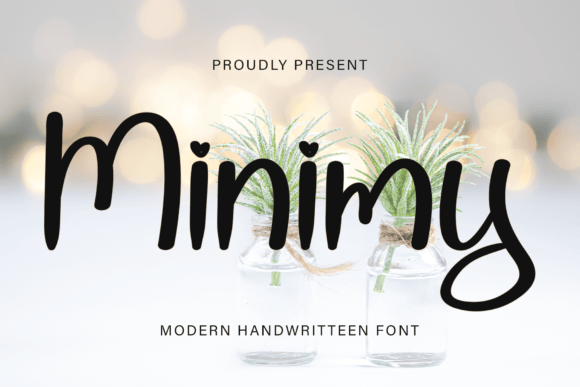
Welcome to the world of Minimy Font, a captivating script font family that exudes casual elegance and heartfelt charm. Created by the talented artisans at pinkmeca, Minimy is a font that speaks to the heart with its friendly and approachable nature. Whether you're a seasoned designer or just starting your creative journey, Minimy is the perfect font to add a touch of warmth and personality to your projects.
Step into a world where creativity knows no bounds with Minimy, the enchanting script font that transforms your ideas into visual masterpieces. With its playful and inviting style, Minimy is the ideal choice for those seeking a font that radiates warmth and authenticity. Dive into a universe of endless possibilities, where your imagination takes center stage.
Craft captivating Instagram posts that resonate with your audience, using Minimy's enchanting curves and expressive strokes to convey your message with a touch of heartfelt charm. Create beautiful calligraphy scripts for your DIY projects, adding a personal touch that makes your creations truly one-of-a-kind. Let Minimy be your creative companion, guiding you through a journey of self-expression and artistic fulfillment.
More than just a font, Minimy is an experience that ignites your imagination and allows your creativity to flourish. Its friendly demeanor and playful nature make it the perfect choice for business forms, adding a touch of warmth and professionalism to your documents. Embrace the power of Minimy to elevate your brand's image and leave a lasting impression on your clients.
Minimy is more than just a font; it's an invitation to express yourself with authenticity and flair. Its versatility knows no bounds, effortlessly adapting to a symphony of design projects. Unleash your creativity and let Minimy guide you as you craft stunning logos, eye-catching social media graphics, and captivating website designs. With Minimy by your side, your creative potential becomes limitless.
Immerse yourself in the beauty of Minimy, a script font that captures the essence of handwritten elegance. Its gentle curves and expressive strokes evoke a sense of nostalgia, transporting you to a simpler time when letters were crafted with care and intention. Let Minimy add a touch of timeless charm to your designs, creating a connection with your audience that goes beyond words.